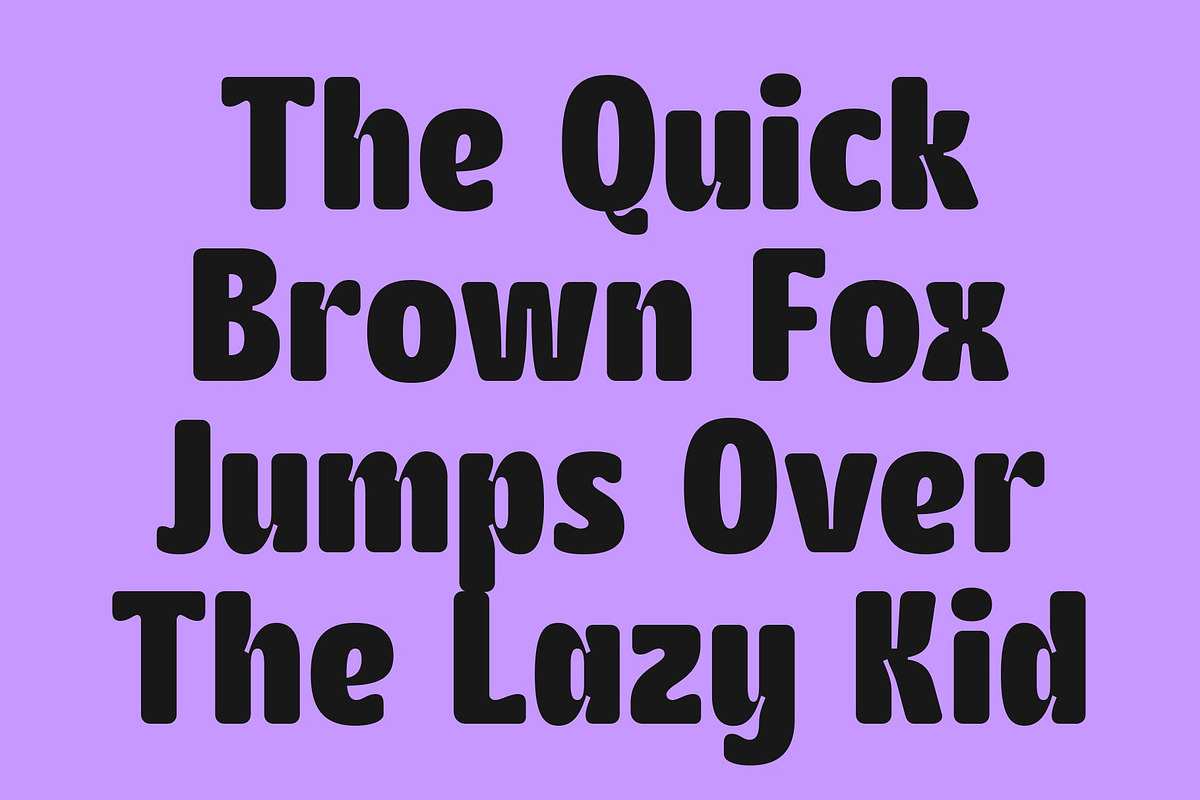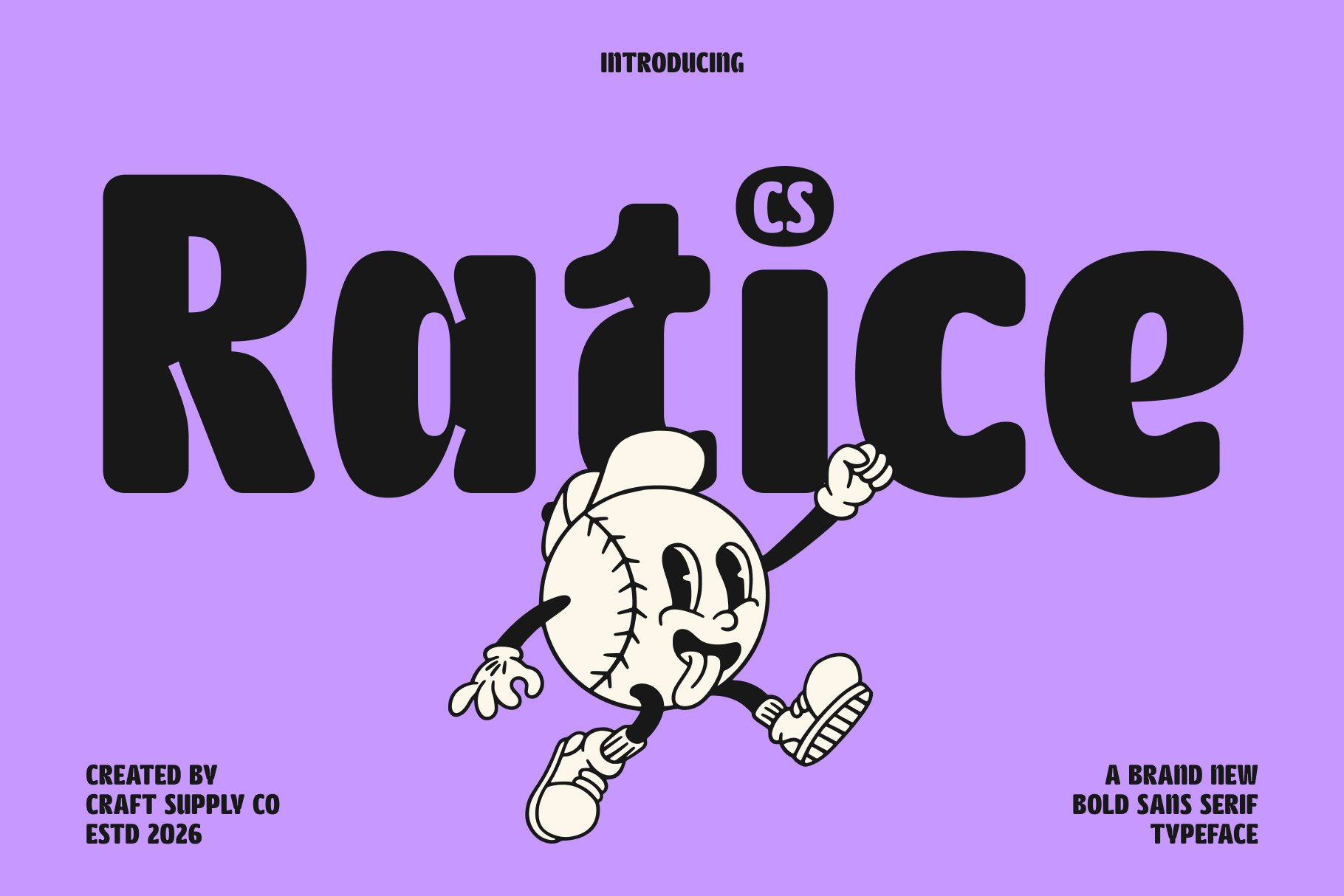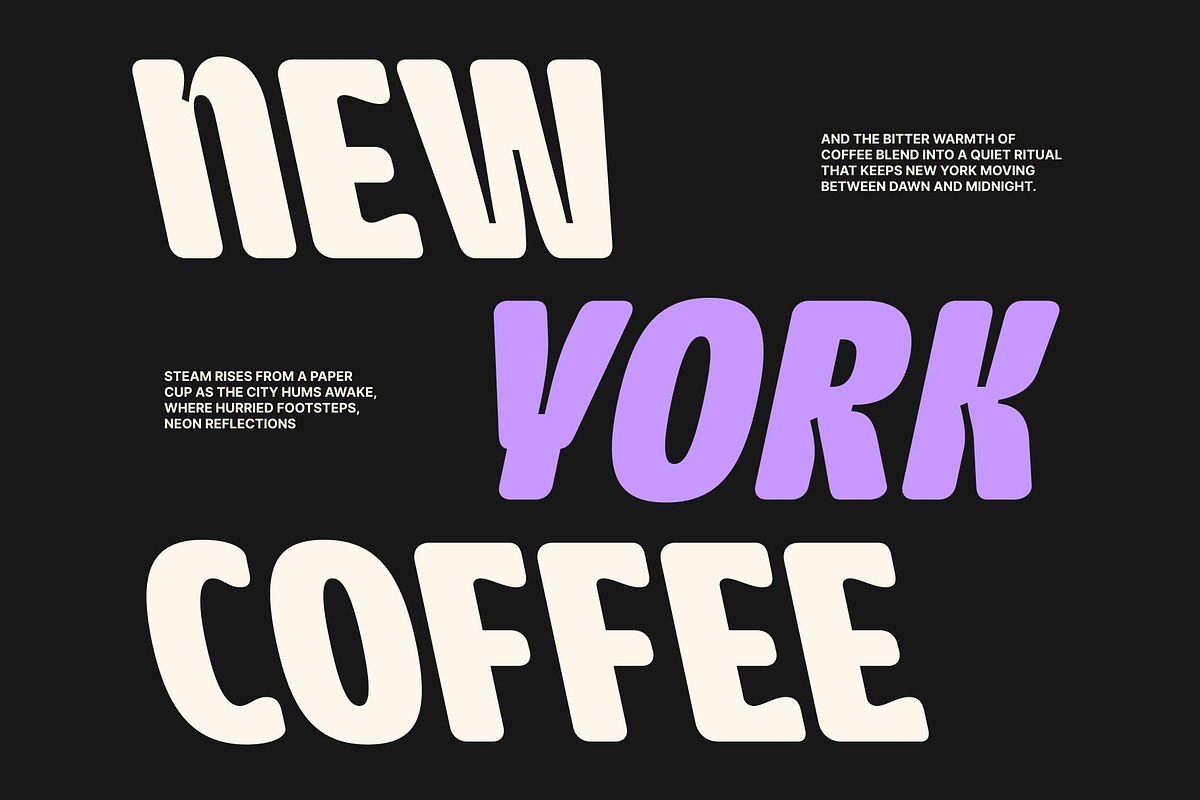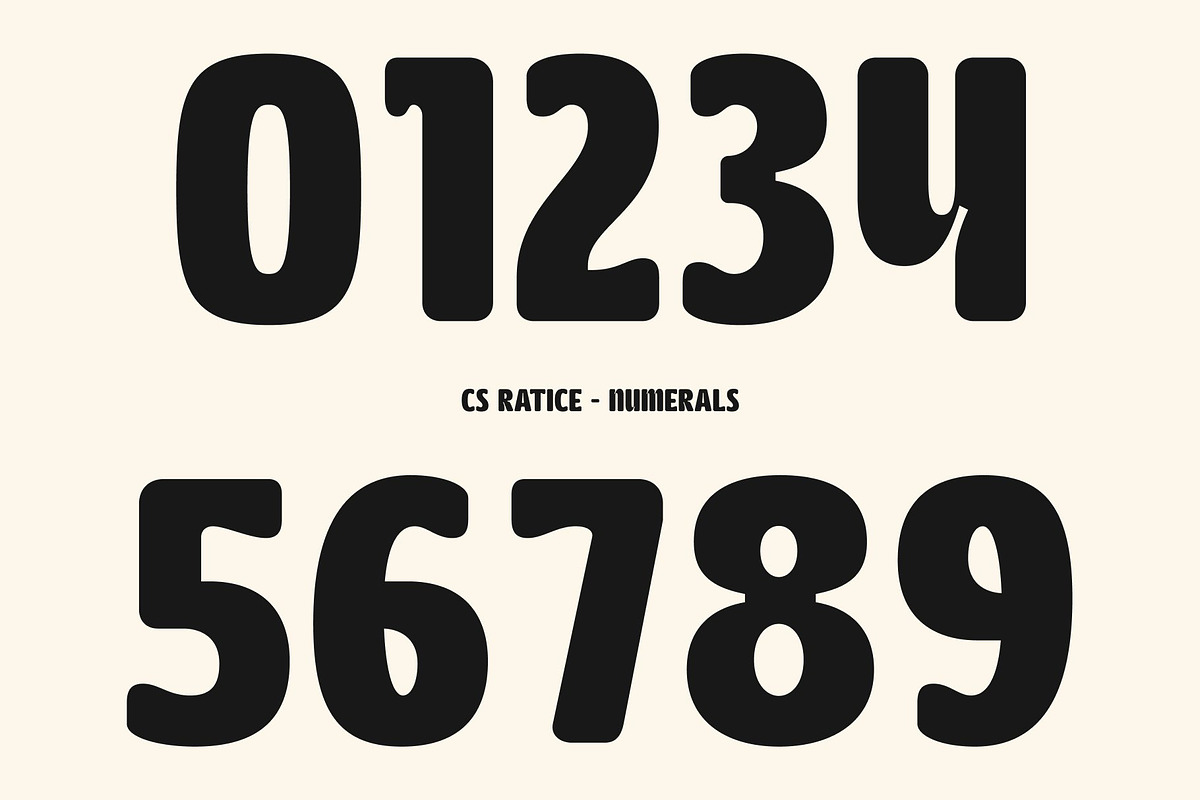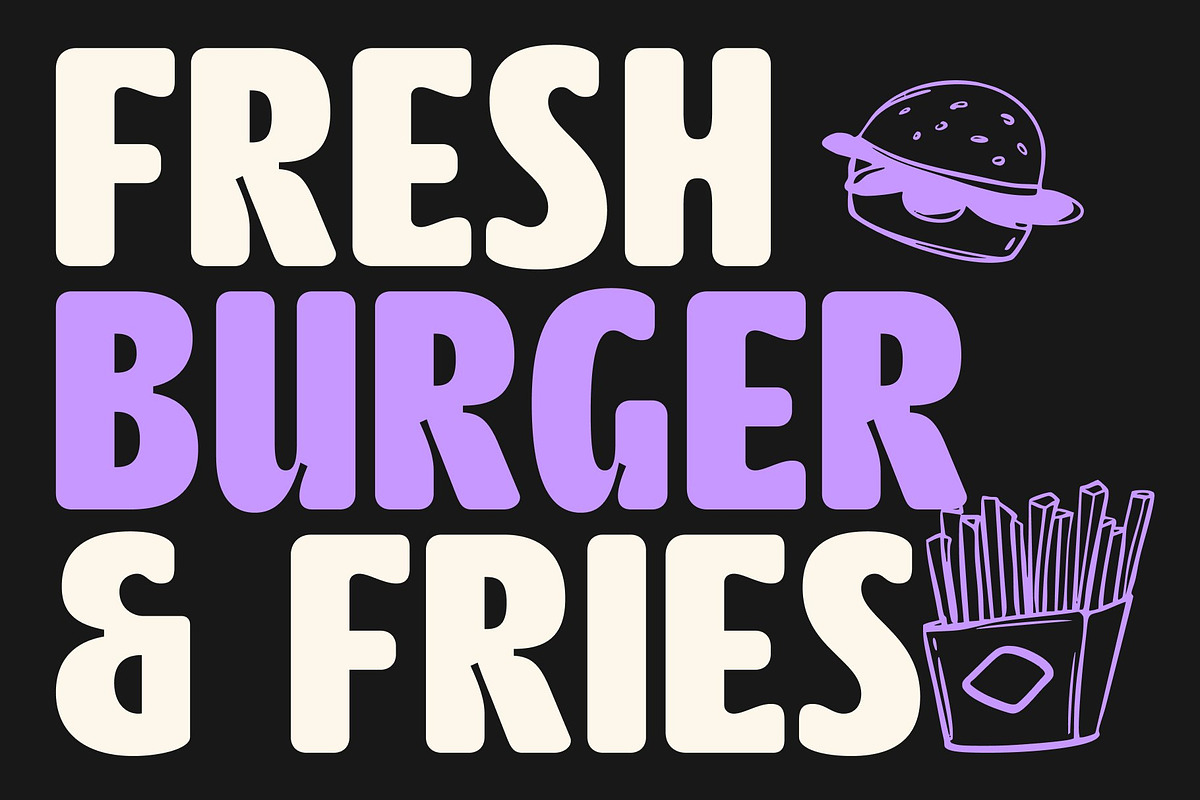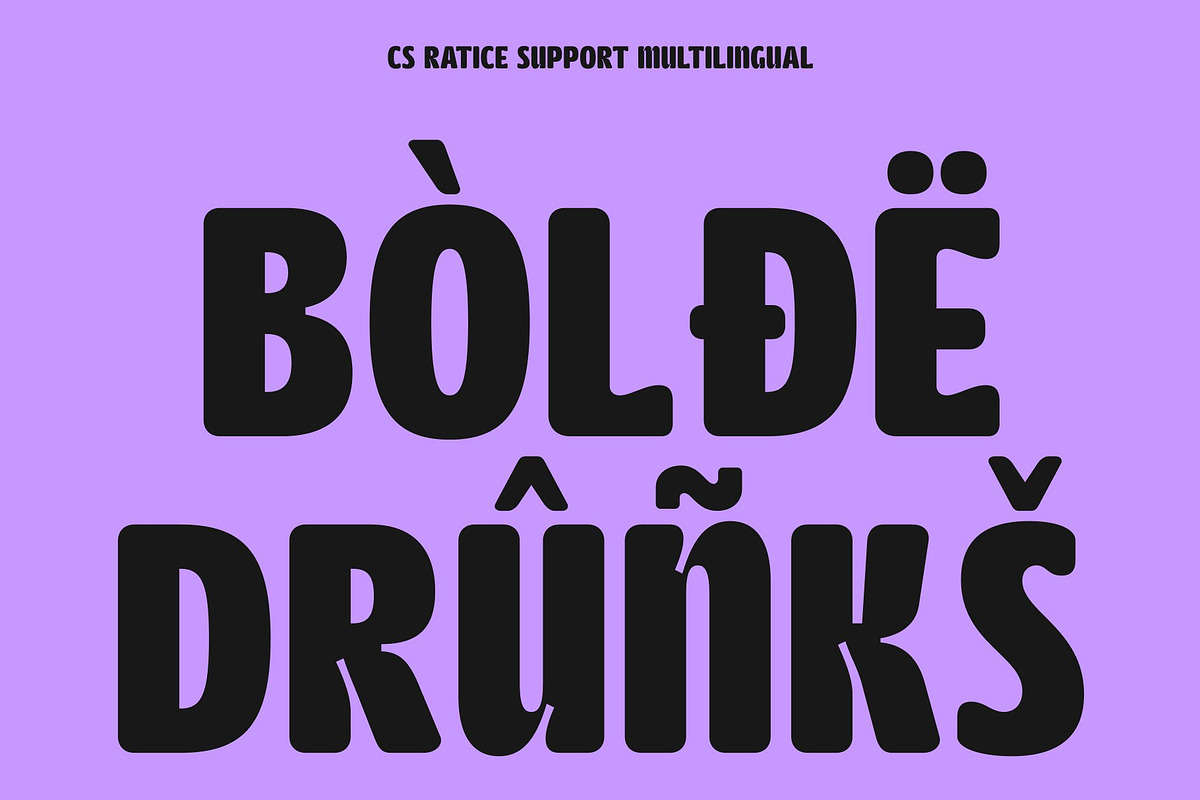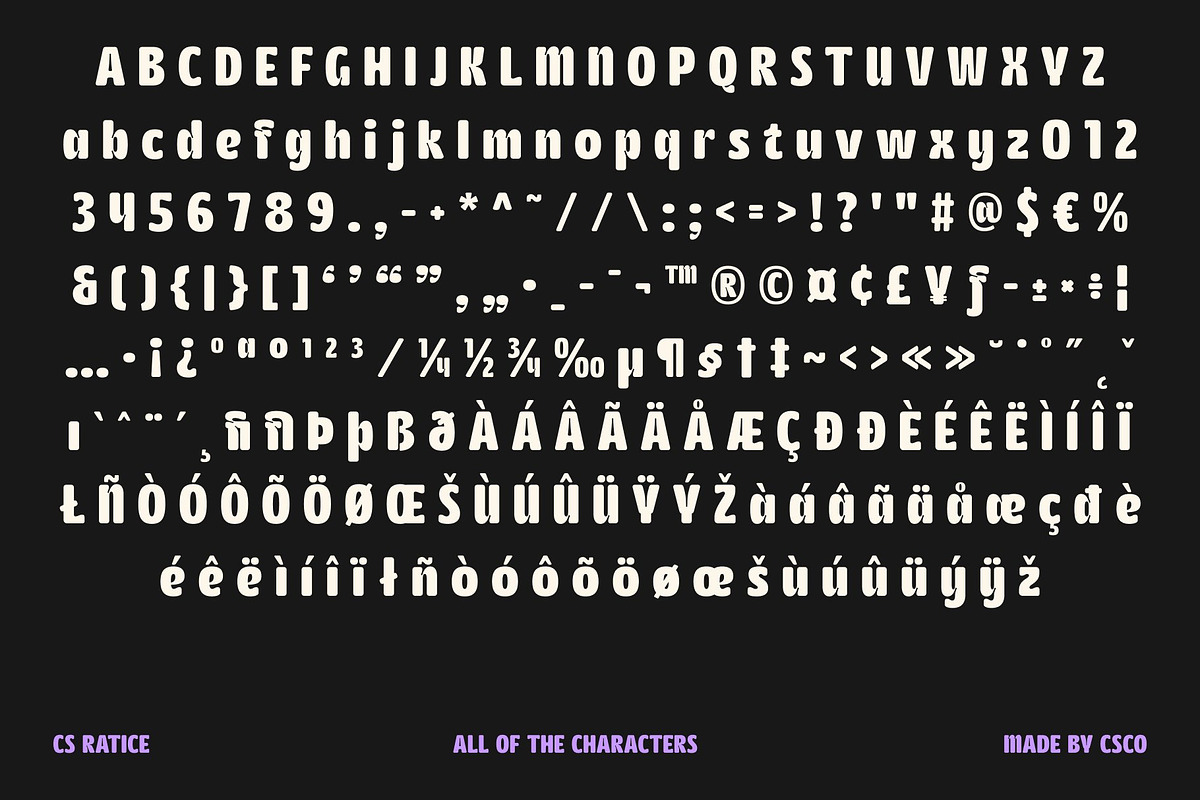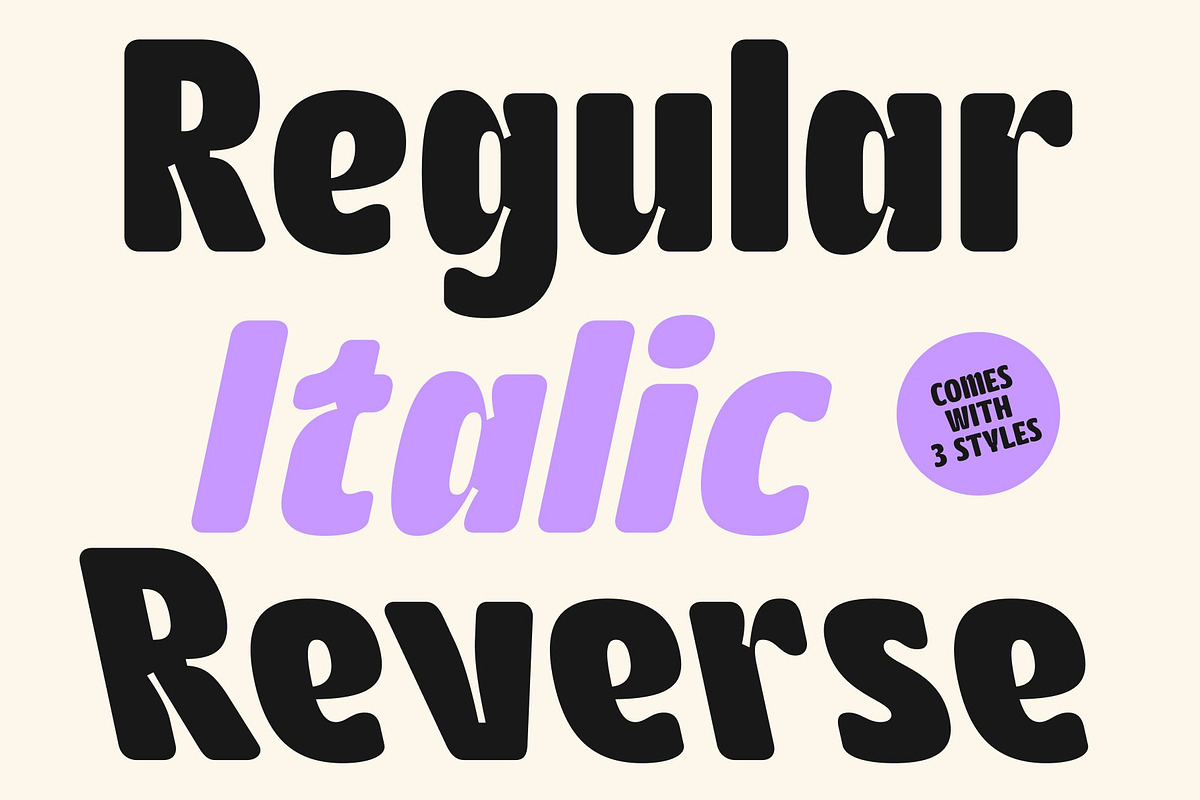
CS Ratice – Inktrap Font
CS Ratice – Bold Sans Serif with Playful Inktrap Character
Bold Sans Serif with Friendly Modern Appeal This is a bold sans serif font that combines strong visual impact with a playful and approachable personality. Featuring distinctive inktrap details and soft letterform characteristics, this typeface creates a unique balance between functionality and charm. It is crafted for designers who want typography that feels bold, modern, and full of character.
Distinctive Inktrap Details with Unique Personality The defining feature of this font lies in its expressive inktrap elements. These subtle cuts and openings not only add visual interest but also give the font a distinctive identity. Combined with its bold structure, the inktraps create a modern and dynamic appearance that feels both technical and playful.
Soft Shapes with Fun Character Despite its strong presence, this font incorporates soft curves and friendly proportions that make it feel welcoming and energetic. This combination of boldness and softness creates a lively rhythm across text, allowing the font to stand out while maintaining an approachable and cheerful tone. The result is typography that feels expressive, engaging, and memorable.
Perfect for Headlines, Posters, and Branding From impactful headlines and eye-catching posters to creative branding and packaging, this font offers a versatile typographic solution. Its combination of bold forms, playful inktrap details, and soft character ensures your designs feel modern, distinctive, and full of personality.